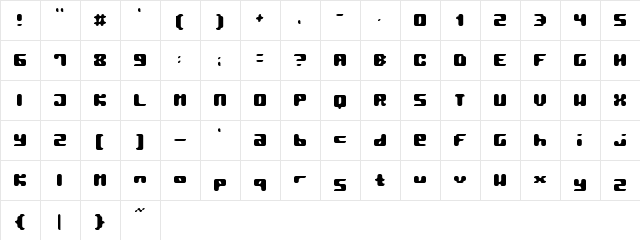
Pormask 2039 Regular
Design Context for Pormask 2039 Typeface
Pormask 2039 is a composed and adaptable typeface that performs quietly and consistently across a wide range of design contexts.